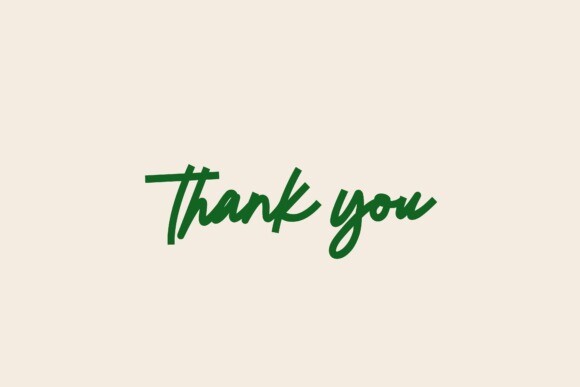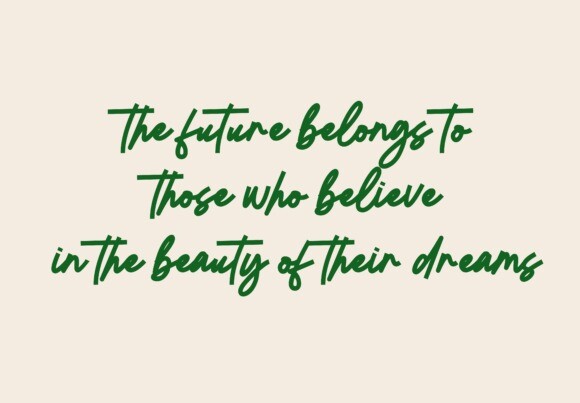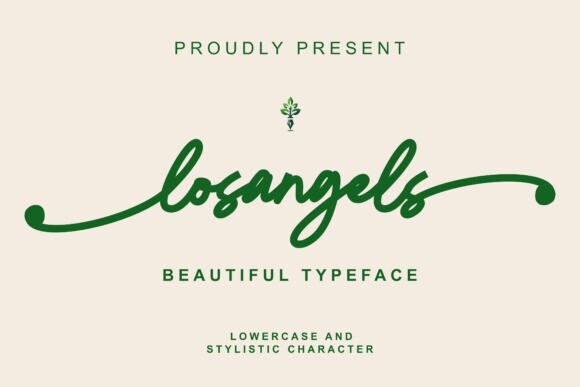
Losangels Font
Designer: Infontree
Losangels Font, a captivating typeface crafted with a perfect blend of high-class elegance and an enchanting rustic flair reminiscent of artisanal handwriting. This sophisticated font is specifically tailored to create stunning wedding invitations, deeply heartfelt thank-you notes, inspirational messages, and emotionally rich greetings that will mesmerize the end receiver. Its streamlined design brings a unique twist to business logos and cards, making it a striking addition to any professional environment. As a script typeface, ‘Losangels Font’ harnesses the charm of manual penmanship, making each word seem like a choreographed dance of letters. Thanks to PUA encoding, every symbol and decorative sweep in ‘Losangels Font’ are easily accessible, enabling a plethora of inventive design possibilities. With ‘Losangels Font’, you’re not just typing – you’re weaving stylish elegance and panache into your creative work, transforming ordinary ideas into visually arresting masterpieces.